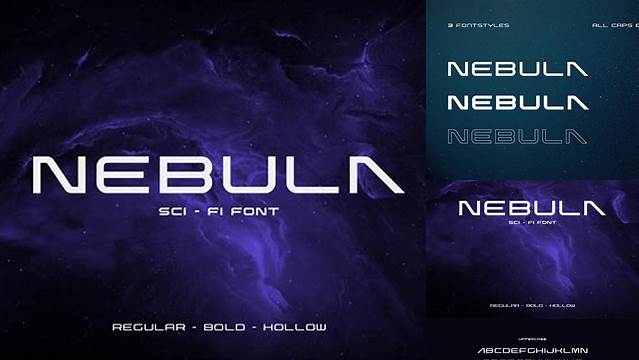
Nebula Sci-Fi Fonts: Free Download & Galactic Styles
Decoding the Universe: Your Guide to Free Nebula Sci-Fi Font Downloads
Nebula sci-fi font free download options are more abundant than you might think, guys, and finding the perfect one can truly elevate your design projects from earthly to out-of-this-world. When we talk about nebula sci-fi fonts, we're not just discussing any run-of-the-mill typeface; we're diving into a realm of interstellar creativity, where letters themselves seem to shimmer with stardust and hum with cosmic energy. These fonts are specifically designed to evoke feelings of the future, distant galaxies, advanced technology, and often, the awe-inspiring beauty of nebulae – those vast clouds of gas and dust where stars are born. The good news is, you don't always have to spend a fortune to get your hands on some truly stunning options. Many talented designers out there generously offer their creations for free, allowing independent creators, students, and even small businesses to access high-quality typography that can make a huge impact.
Finding the right nebula sci-fi font for free download involves a bit of exploration, much like navigating an uncharted galaxy. You'll encounter a diverse range of styles, from sleek, minimalist designs that scream 'advanced AI' to rugged, distressed fonts that whisper tales of desolate alien landscapes. There are also those that mimic the ethereal glow and organic shapes of an actual nebula, giving your text an almost otherworldly, flowing quality. It's crucial to understand what kind of sci-fi vibe you're going for before you start your search. Are you building a retro-futuristic arcade game poster? Or perhaps designing a sleek UI for a space exploration app? Maybe you're writing a graphic novel set millions of light-years away? Each scenario calls for a slightly different aesthetic, and thankfully, the world of free nebula sci-fi fonts is vast enough to accommodate almost any vision.
Exploring the Galactic Archives: Where to Unearth Free Sci-Fi Fonts
Finally, when searching for that ideal nebula sci-fi font free download, consider what the font communicates beyond just its aesthetic. Does it convey sleekness, ruggedness, ancient alien scripts, or advanced futuristic tech? The best font doesn't just look good; it feels right for your project. Websites like Google Fonts, while having fewer explicitly